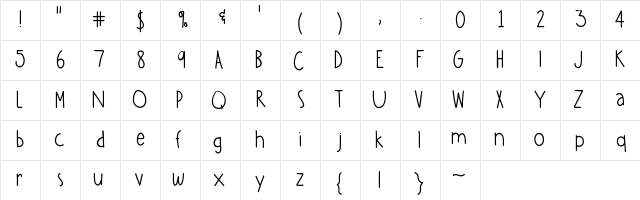
Annabelle Medium
Annabelle Family
Annabelle Medium
Design Context for Annabelle
Annabelle is a composed and adaptable typeface that performs quietly and consistently across a wide range of design contexts.